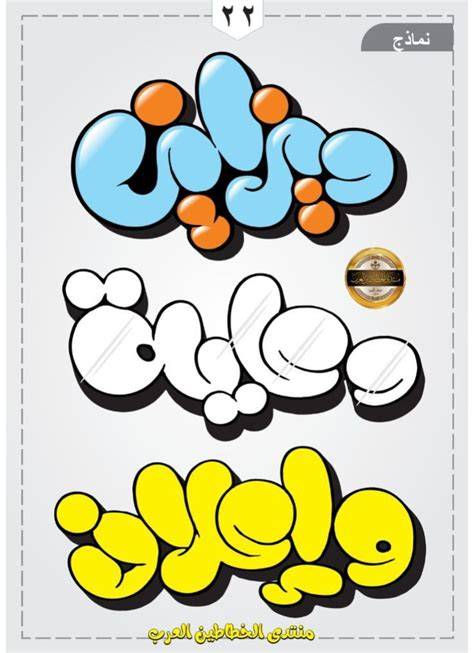
Readers, have you ever wished you could add a touch of whimsy and elegance to your Arabic text? If so, you've likely stumbled upon the charm of bubble font Arabic. It's a captivating font style that brings a playful yet sophisticated air to any design. But what exactly is bubble font Arabic, and where can you find it?
The Allure of Bubble Font Arabic: A Visual Delight
Bubble font Arabic, as the name suggests, is a font style that resembles playful, rounded bubbles. It's a perfect choice for adding a touch of whimsy and personality to your Arabic text. Imagine using it for invitations, posters, social media graphics, or even website headers. It's a versatile font that can adapt to various design needs.
One of the most captivating aspects of bubble font Arabic is its ability to transform ordinary text into a visual delight. The rounded shapes create a sense of softness and playful energy, making your words appear more approachable and inviting. This font style has a unique ability to draw attention and spark curiosity.
Why Choose Bubble Font Arabic?
Beyond its aesthetic appeal, bubble font Arabic offers several practical benefits.
- Enhanced Readability: Despite its playful nature, bubble font Arabic is designed with readability in mind. The rounded shapes and generous spacing between characters make the text easier to scan and understand.
- Visual Appeal: This font style instantly adds a touch of personality and visual interest to any design. It's a great way to make your text stand out from the crowd.
- Versatility: Bubble font Arabic can be incorporated into a wide range of design projects, from whimsical greetings to sophisticated branding elements.
Exploring the Different Types of Bubble Font Arabic
There are various types of bubble font Arabic, each with its own unique charm and personality. This diverse selection allows you to find the perfect font to complement your project's style and message. Let's delve into some of these exciting font families.
1. Classic Bubble Font Arabic: A Timeless Choice
Classic bubble font Arabic embodies the essence of this font style with its smooth, rounded shapes and consistent letterforms. This font is often characterized by its playful yet elegant appearance, making it a timeless choice for a wide range of applications.
From traditional Islamic calligraphy to modern graphic designs, classic bubble font Arabic demonstrates its versatility. Whether you're designing a wedding invitation or a social media post, this font will effortlessly add a touch of charm and sophistication.
2. Bold and Playful Bubble Font Arabic: For a Dynamic Look
Bold bubble font Arabic takes the classic style to a whole new level of energy and dynamism. This font family features thicker strokes and exaggerated round shapes, adding a playful and attention-grabbing element to your designs.
If you're looking to create a vibrant and memorable look, bold bubble font Arabic is an excellent choice. It's perfect for posters, flyers, and other marketing materials that demand a strong visual impact.
3. Decorative Bubble Font Arabic: Embracing Artistic Flair
Decorative bubble font Arabic pushes the boundaries of traditional bubble font designs, incorporating intricate details, ornate swirls, and artistic flourishes. This font style is ideal for adding a touch of elegance and artistic flair to your designs.
Think about using decorative bubble font Arabic for invitations, certificates, or other documents that require a sophisticated and aesthetically pleasing touch. It's a font that speaks volumes about attention to detail and artistic appreciation.
Where to Find Free Bubble Font Arabic: Unleashing Creativity
The beauty of the internet is that you can access a treasure trove of free resources, including fantastic bubble font Arabic options. Here are some reliable sources to explore:
1. Google Fonts: A Comprehensive Library
Google Fonts is a well-known platform for accessing a vast collection of free fonts, including a wide selection of bubble font Arabic styles. Google Fonts is renowned for its quality and ease of use. Simply browse the library, select your desired font, and download it for free. You can then seamlessly integrate it into your design programs.
2. Font Squirrel: A Curated Selection of Fonts
Font Squirrel is another excellent resource for finding free and high-quality fonts, including bubble font Arabic. This platform features a curated collection of fonts that have been carefully reviewed for their quality and usability.
Font Squirrel makes it easy to find the perfect bubble font Arabic for your project. You can filter your search based on specific criteria, such as style, license, and platform compatibility.
3. Dafont: A Diverse Font Community
Dafont is a popular website that hosts a vast community of font designers and enthusiasts. You'll find a diverse range of creative fonts, including bubble font Arabic, on this platform. It's an excellent source for discovering unique and often experimental font styles.
Using Bubble Font Arabic Effectively: Tips for Success
Using bubble font Arabic effectively is about more than just choosing a beautiful font. It's about ensuring that the font complements your design and message. Here are a few tips to help you make the most of bubble font Arabic:
1. Consider the Context: Choose the Right Font for the Occasion
Bubble font Arabic, with its inherent playful and rounded aesthetic, is perfect for events like birthday parties, children's events, or projects that require a lighthearted and whimsical feel. However, it's crucial to consider the context of your design.
For instance, you wouldn't want to use a bold bubble font Arabic for a formal wedding invitation. In such cases, a more elegant or traditional font would be a better fit.
2. Balance is Key: Avoid Overusing Bubble Font Arabic
While bubble font Arabic can add visual appeal, it's important to use it in moderation. Overusing it can create a chaotic or overwhelming design. Use it strategically for headings, titles, or key phrases, leaving the body text in a more standard font for better readability.
3. Play with Color and Size: Enhance the Impact
Experiment with different colors and font sizes to create a harmonious design. A vibrant color palette can enhance the playful nature of bubble font Arabic, while a more muted color scheme can create a more sophisticated look.
4. Maintain Readability: Prioritize Clarity
Remember that readability should always be a priority. Make sure the font size is large enough, adjust the spacing between characters and lines, and choose a color contrast that makes the text easy to read.
Bubble Font Arabic: Beyond the Basics
Now that you have a deeper understanding of bubble font Arabic, let's explore some advanced concepts that can elevate your designs.
1. Combining Bubble Font Arabic with Other Styles: Creating Visual Harmony
Bubble font Arabic pairs beautifully with other font styles. For example, you can combine it with a serif font for a classic and elegant look, a sans-serif font for a modern and clean aesthetic, or a script font for a touch of romance.
2. Customizing Bubble Font Arabic: Achieving Unique Results
Many online services and software programs allow you to customize bubble font Arabic. You can adjust the font's weight, slant, and other attributes to create a truly unique and personalized look.
FAQs About Bubble Font Arabic
What is the history of bubble font Arabic?
Bubble font Arabic has its roots in the desire to create a playful and approachable font style for the Arabic language. It's a relatively recent development compared to traditional Arabic calligraphy.
What are the best applications for bubble font Arabic?
Bubble font Arabic is perfect for projects that call for a whimsical, playful, or celebratory feel. It's great for invitations, posters, flyers, social media graphics, children's books, and website headers.
What are some creative ways to use bubble font Arabic?
You can use bubble font Arabic to create eye-catching logos, design unique letterheads, or add a touch of personality to your presentations. The possibilities are endless!
And there you have it, readers, a comprehensive exploration of bubble font Arabic. From its origins to its diverse styles and practical applications, we've covered it all. Remember, using bubble font Arabic effectively is about finding the perfect balance between playfulness and sophistication.